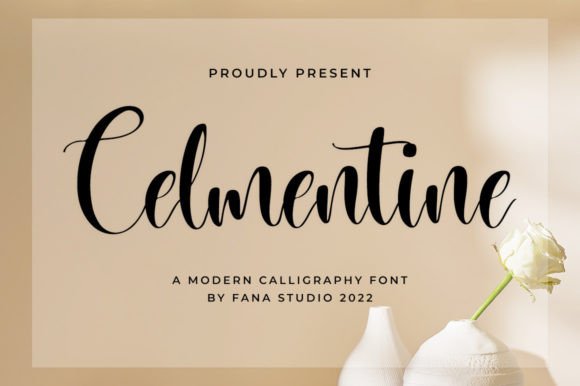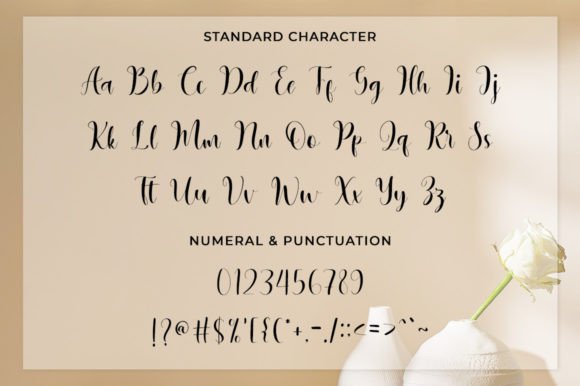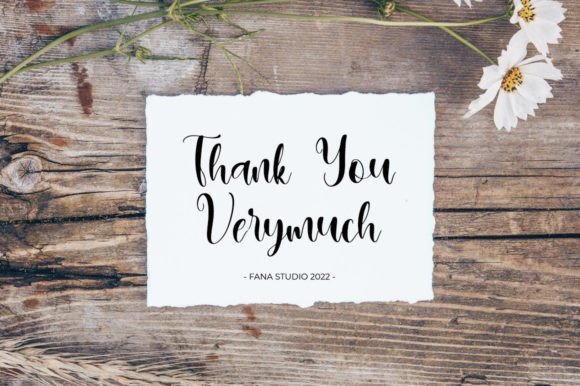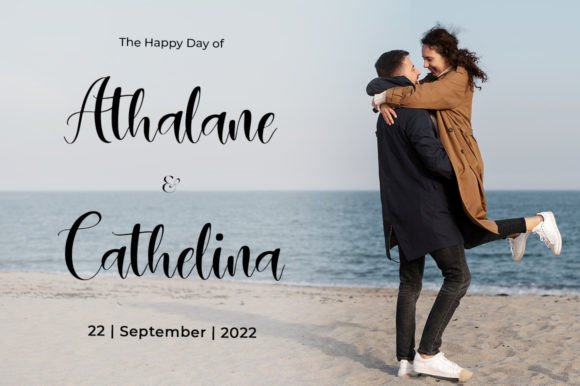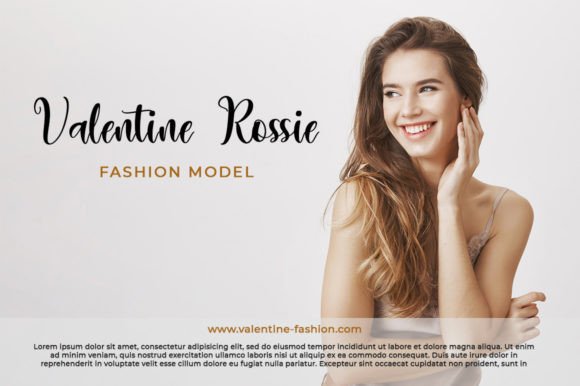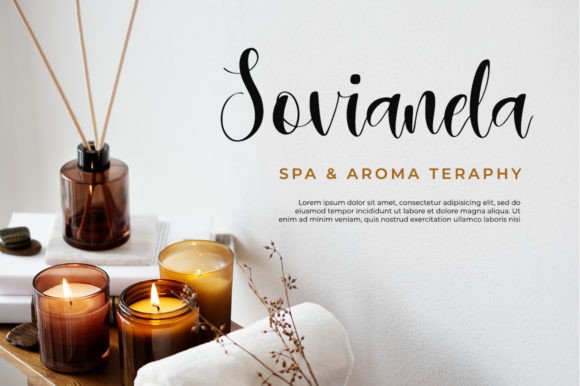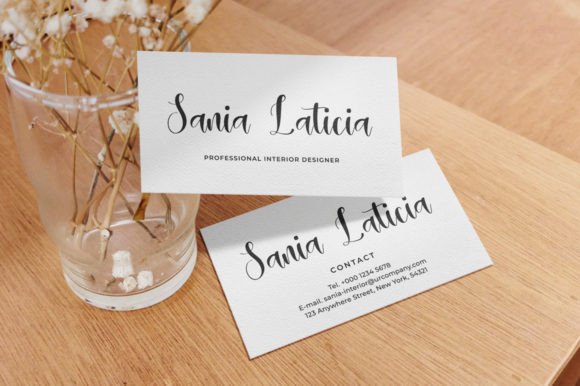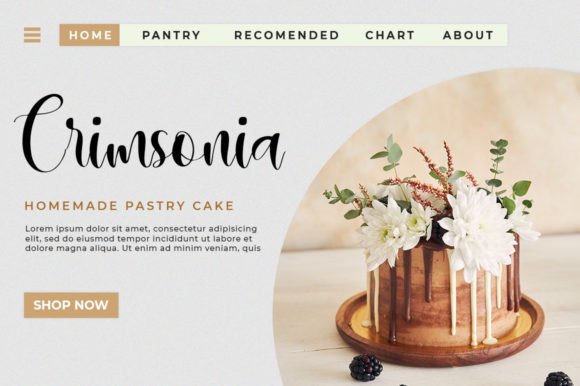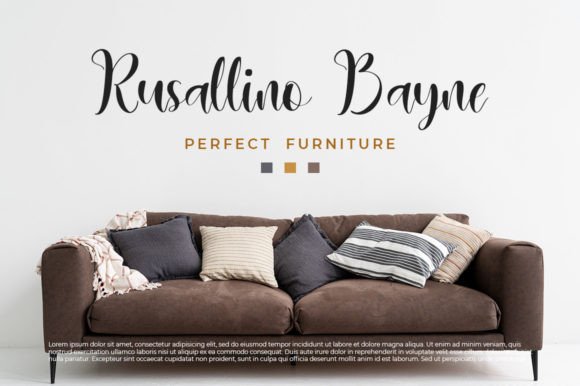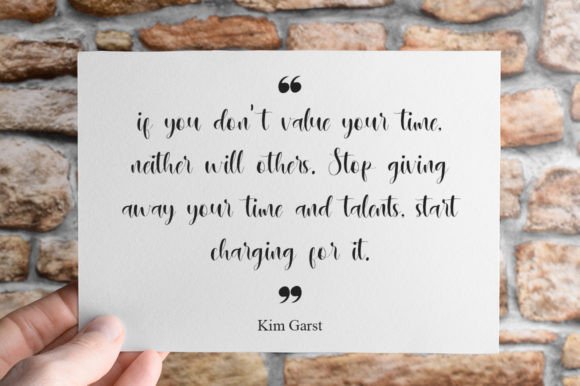
Celmentine Font
About Celmentine Font
**Clementine Script: Stylish Elegance for Your Projects**
Introducing “Clementine Script,” a beautiful and stylish font that brings an elegant, classy, and modern look to your art projects. This script font is designed to offer a personal touch, making it perfect for a variety of applications, including logos, branding, invitations, stationery, wedding designs, social media posts, advertisements, product packaging, labels, photography, watermarks, and special events. With its gorgeous typographic elements, Clementine Script is a versatile choice for projects that require a touch of handwriting taste.
**Elegant and Classy Design:**
Clementine Script is crafted with an elegant and classy design that adds a touch of sophistication to your projects. Its stylish aesthetic makes it suitable for a wide range of applications.
**Perfect for Logos and Branding:**
Infuse your logos and branding with the unique charm of Clementine Script. The font’s personal touch creates a memorable and distinctive brand identity.
**Ideal for Invitations and Stationery:**
Create beautiful invitations and stationery with Clementine Script. The script font enhances the overall look with its elegant and modern appeal, making your materials stand out.
**Versatile for Wedding Designs:**
Enhance wedding designs with the romantic touch of Clementine Script. From invitations to wedding stationery, this font brings a timeless and classy feel to the celebration.
**Adaptable for Social Media Posts:**
Make your social media posts visually appealing with Clementine Script. Its stylish look adds a modern and elegant touch to your graphics, engaging your audience.
**Gorgeous Typography for Advertisements:**
Design eye-catching advertisements with the gorgeous typographic elements of Clementine Script. The font’s style elevates your ad campaigns, making them more impactful.
**Charming Product Packaging:**
Infuse charm into your product packaging with Clementine Script. The font’s handwriting taste adds a personal and inviting element to your product designs.
**Photography Watermarks with Style:**
For photographers, Clementine Script serves as a stylish choice for watermarks. Add a touch of elegance to your photos with this beautiful script font.
**Special Events and Labels:**
Whether it’s a special event or label design, Clementine Script adapts effortlessly. Its versatility makes it suitable for a range of creative projects.
**Handwriting Taste for a Personalized Touch:**
Clementine Script brings a handwriting taste to your projects, providing a personalized touch that resonates with authenticity and style.
Clementine Script is more than just a font; it’s a design asset that enhances the visual appeal of your projects with its stylish and elegant elements. Whether you’re working on branding, invitations, or social media graphics, let Clementine Script be the key to elevating your designs with a touch of modern sophistication.